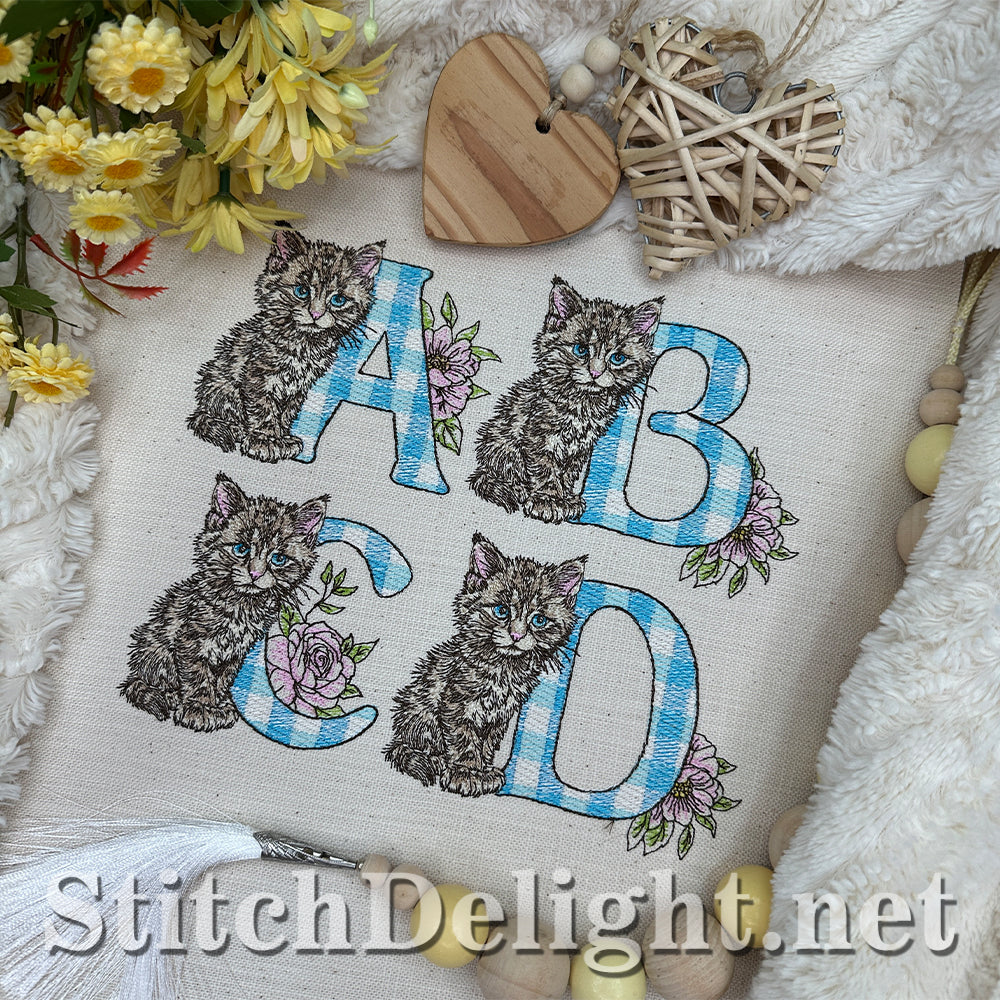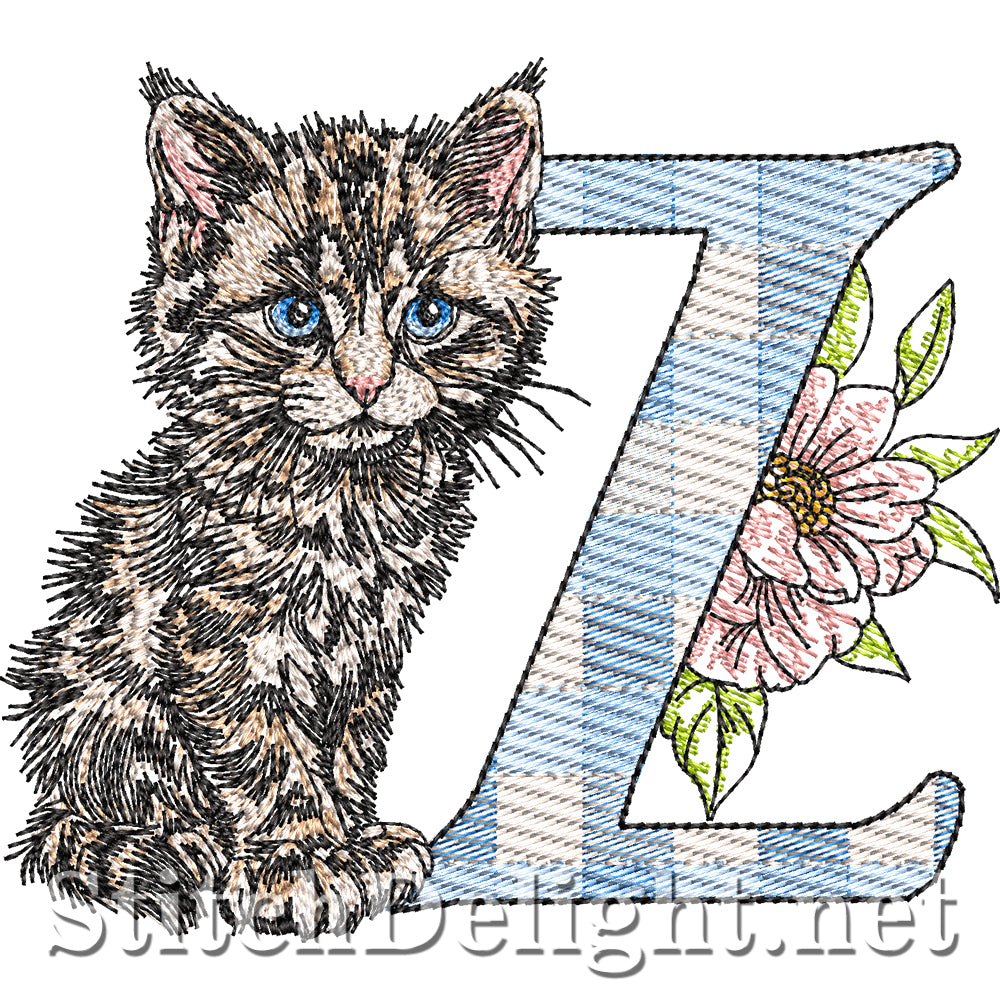
SDS4702 Country Kitten Font Z
Cute little Kitten with Roses and a pretty Gingham letter using 3 shades of color to quickly change to any color you want. This font has a letter height of 3.5"